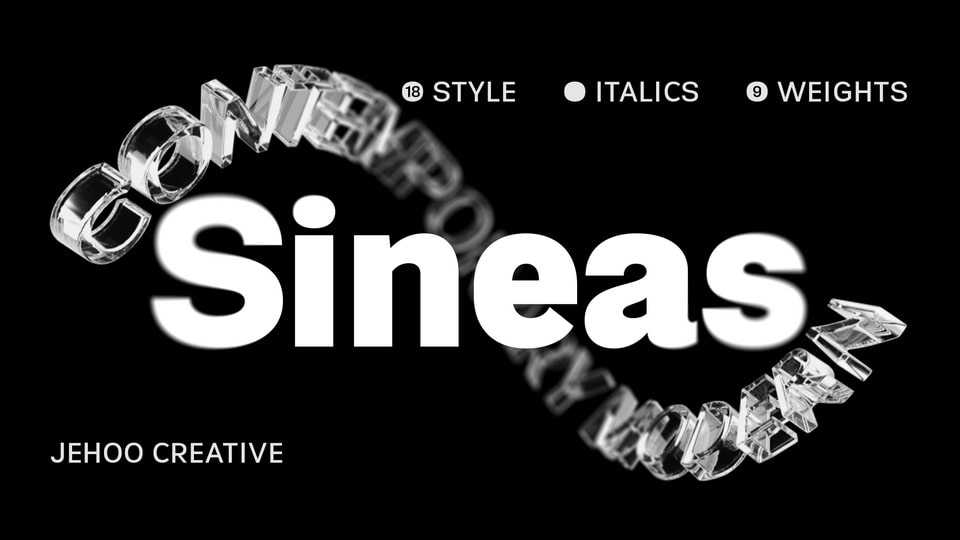
JHC Sineas Font › Fontesk – Download Grátis
Download JHC Sineas font, a contemporary grotesque sans serif typeface that blends sophistication with versatility, perfect for any application: from bold headlines to delicate body text.
Designer: Jehoo Creative